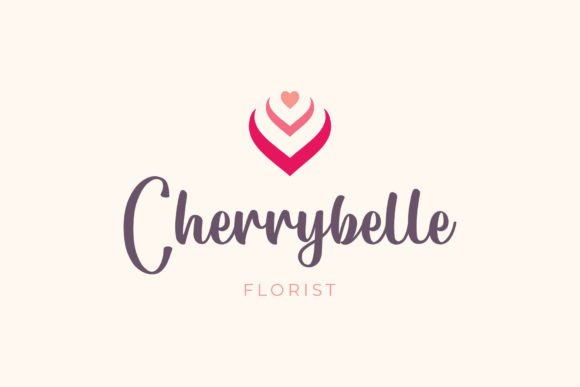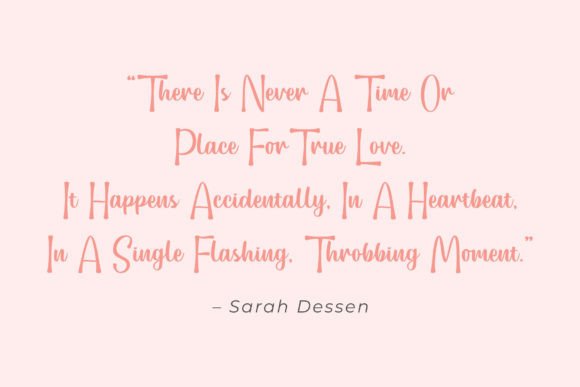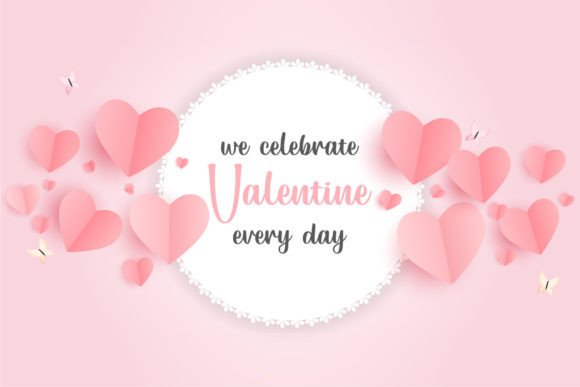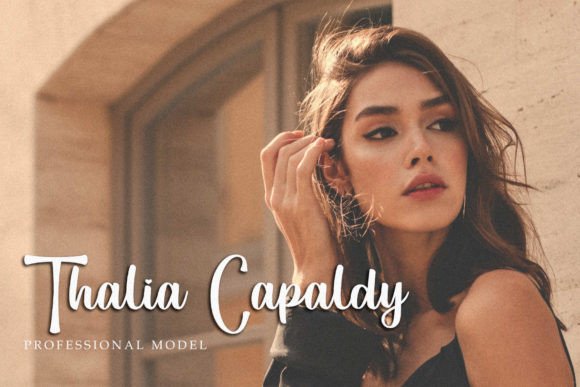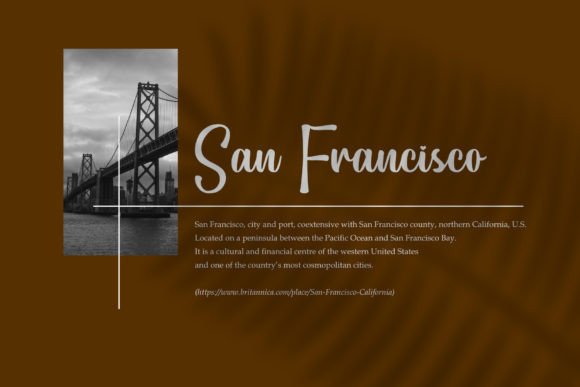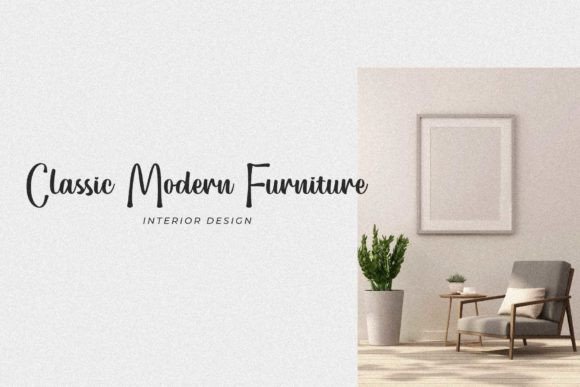
Introducing Cheerful Valentine Font: Add a Touch of Love to Your Wedding Designs
Are you looking for a font that will make your wedding design projects stand out and convey the love and joy of the special day? Look no further than Cheerful Valentine Font, a simple and romantic handwritten font that is perfect for adding a touch of love to your designs. In this article, we’ll explore the features and benefits of Cheerful Valentine Font and how it can elevate your wedding designs to the next level.
A Simple yet Romantic Handwritten Font
Cheerful Valentine Font is a beautiful, handwritten font that exudes a sense of romance and playfulness. Its smooth and natural strokes give it a personal and organic feel, making it perfect for wedding designs that require a touch of warmth and personality. The font features cute hearts and various ligatures that add a whimsical touch to your typography, making it more expressive and engaging.
Perfect for Wedding Design Projects
Whether you’re a designer or crafter, Cheerful Valentine Font is an excellent choice for a variety of wedding design projects. From elegant invitations and save the dates to menus and thank you cards, this font will make your designs look adorable and heartfelt. Its versatility and charm make it suitable for a range of wedding themes and styles, from rustic and vintage to modern and sophisticated.
Key Features of Cheerful Valentine Font
- Smooth and natural strokes: Give your designs a personal and organic feel with the font’s smooth and natural strokes.
- Cute hearts and ligatures: Add a touch of whimsy and romance to your typography with the font’s adorable hearts and ligatures.
- Handwritten style: Create a sense of warmth and personality in your designs with the font’s handwritten style.
- Versatile: Suitable for a range of wedding design projects, including invitations, save the dates, menus, and thank you cards.
Benefits of Using Cheerful Valentine Font
Using Cheerful Valentine Font in your wedding design projects offers several benefits, including:
- Unique and personalized designs: Stand out from the crowd with unique and personalized designs that reflect the couple’s style and personality.
- Emotional connection: Create an emotional connection with the couple and their guests through beautiful and heartfelt designs.
- Ease of use: The font is easy to use and works seamlessly with a range of design software and platforms.
- Time-saving: Save time and effort with a font that is easy to work with and requires minimal editing.
Tips for Using Cheerful Valentine Font
To get the most out of Cheerful Valentine Font, here are some tips to keep in mind:
- Pair with complementary fonts: Pair Cheerful Valentine Font with complementary fonts to create a unique and visually appealing design.
- Experiment with colors: Experiment with different colors and textures to add depth and interest to your designs.
- Use ligatures and swashes: Take advantage of the font’s ligatures and swashes to add a touch of elegance and sophistication to your designs.
- Keep it simple: Don’t overcomplicate your design – keep it simple and elegant to let the font shine.
Cheerful Valentine Font is a beautiful and romantic handwritten font that is perfect for adding a touch of love to your wedding design projects. With its smooth and natural strokes, cute hearts, and various ligatures, this font is sure to make your designs look adorable and heartfelt. Whether you’re a designer or crafter, Cheerful Valentine Font is an excellent choice for a range of wedding themes and styles. So why wait? Download Cheerful Valentine Font today and start creating stunning wedding designs that will leave a lasting impression.